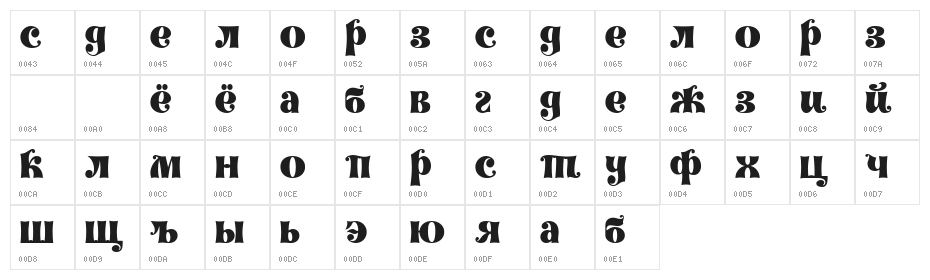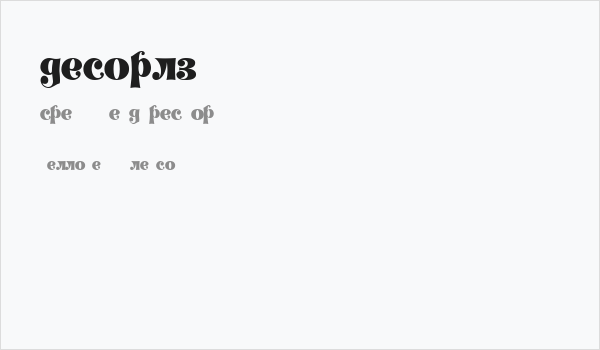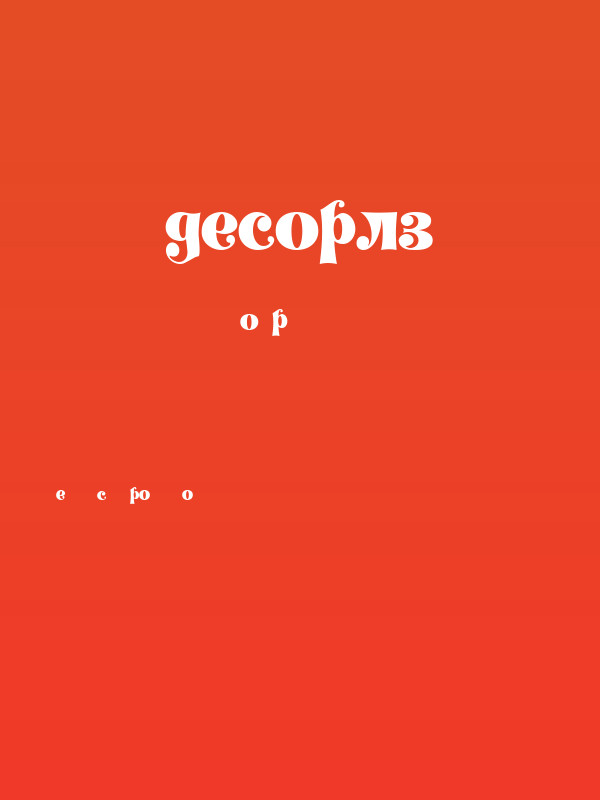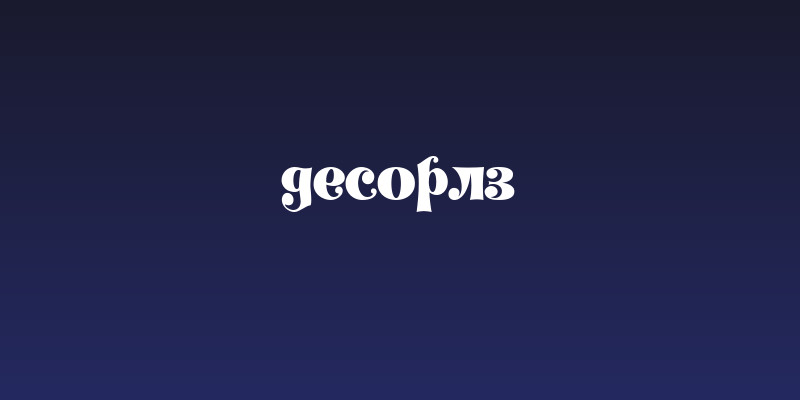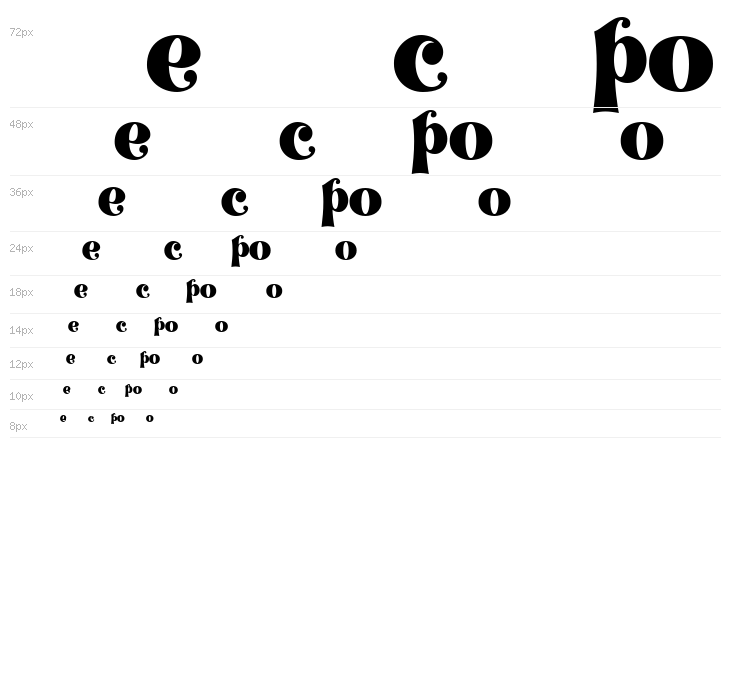
Decorlz Font
Decorlz Description
This font features a bold and decorative style with a playful and artistic flair. The characters exhibit a unique blend of thick and thin strokes, creating a whimsical and eye-catching appearance. The letters have exaggerated curves and swirls, adding a sense of movement and elegance. This font is highly stylized, making it suitable for creative and expressive projects. Its boldness ensures visibility and impact, while the decorative elements provide a touch of sophistication and charm. The overall design is reminiscent of vintage or retro aesthetics, yet it maintains a modern appeal through its clean lines and balanced proportions.
| Overall Style | Vintage, Decorative |
| Proposed Projects | Ideal for branding, posters, invitations, and any project requiring a touch of elegance and creativity. |